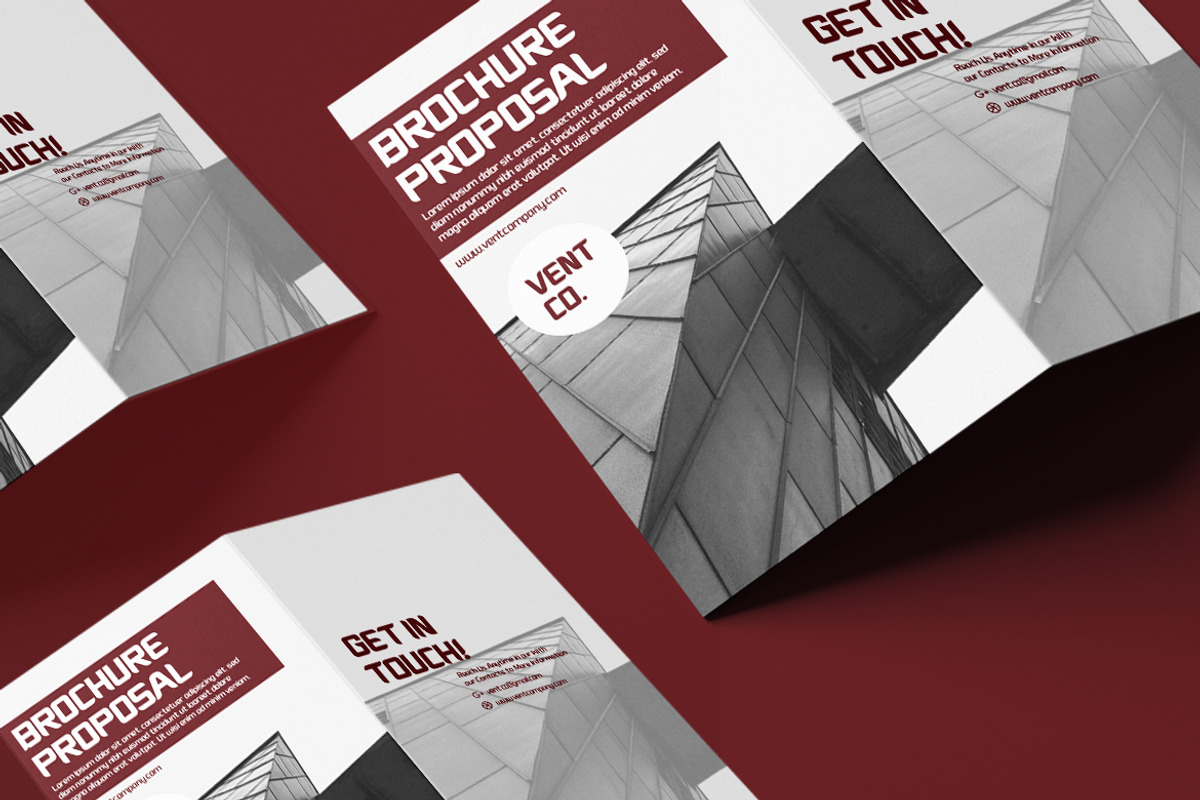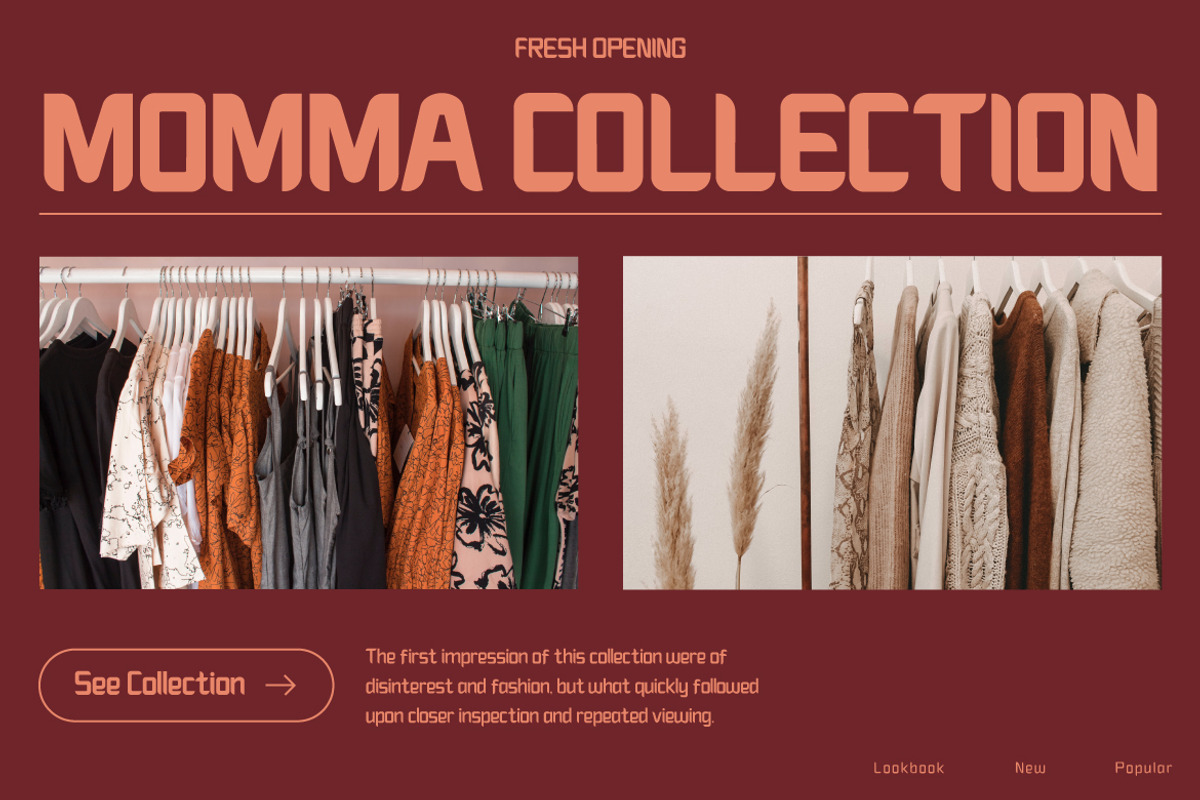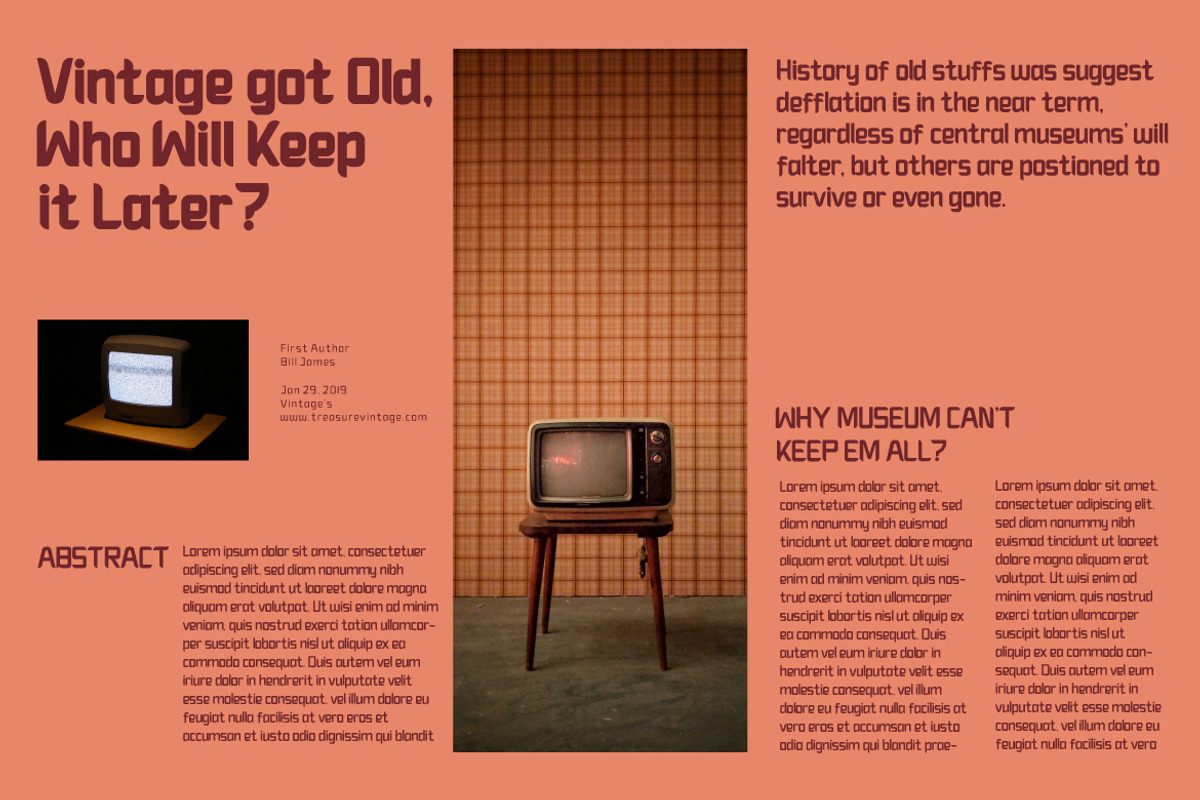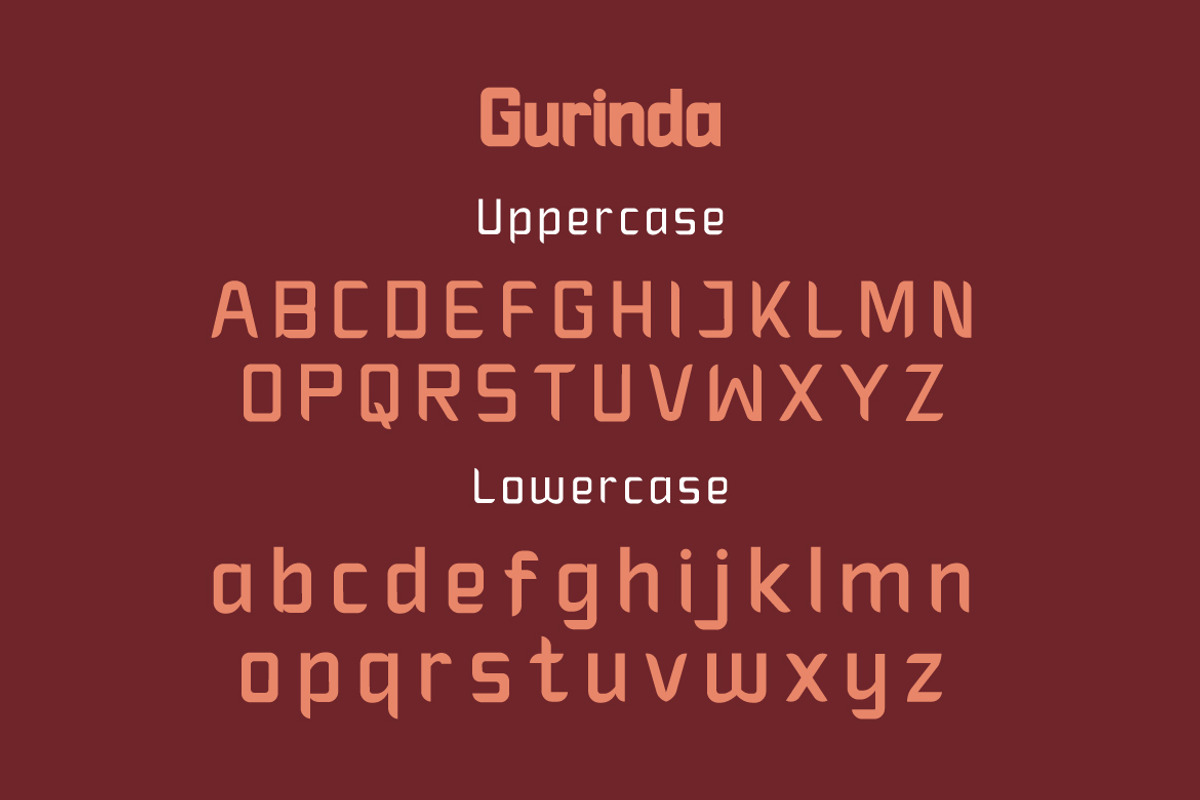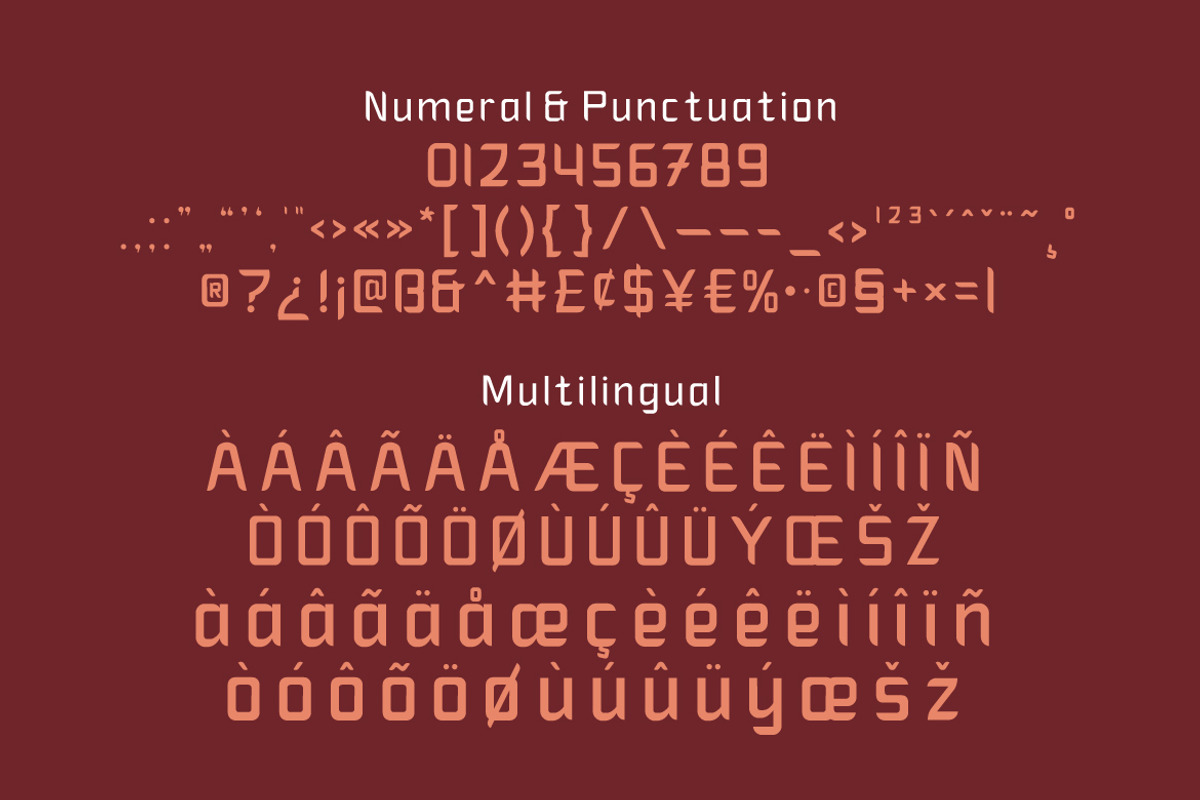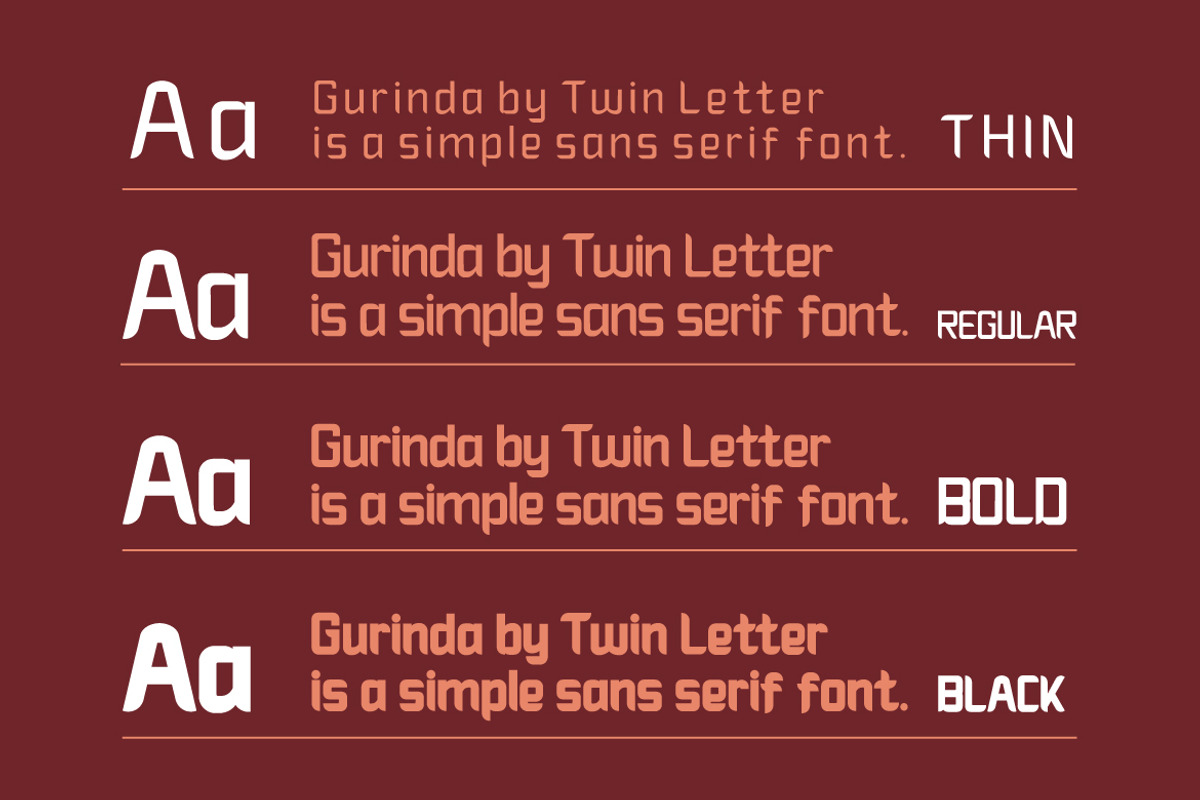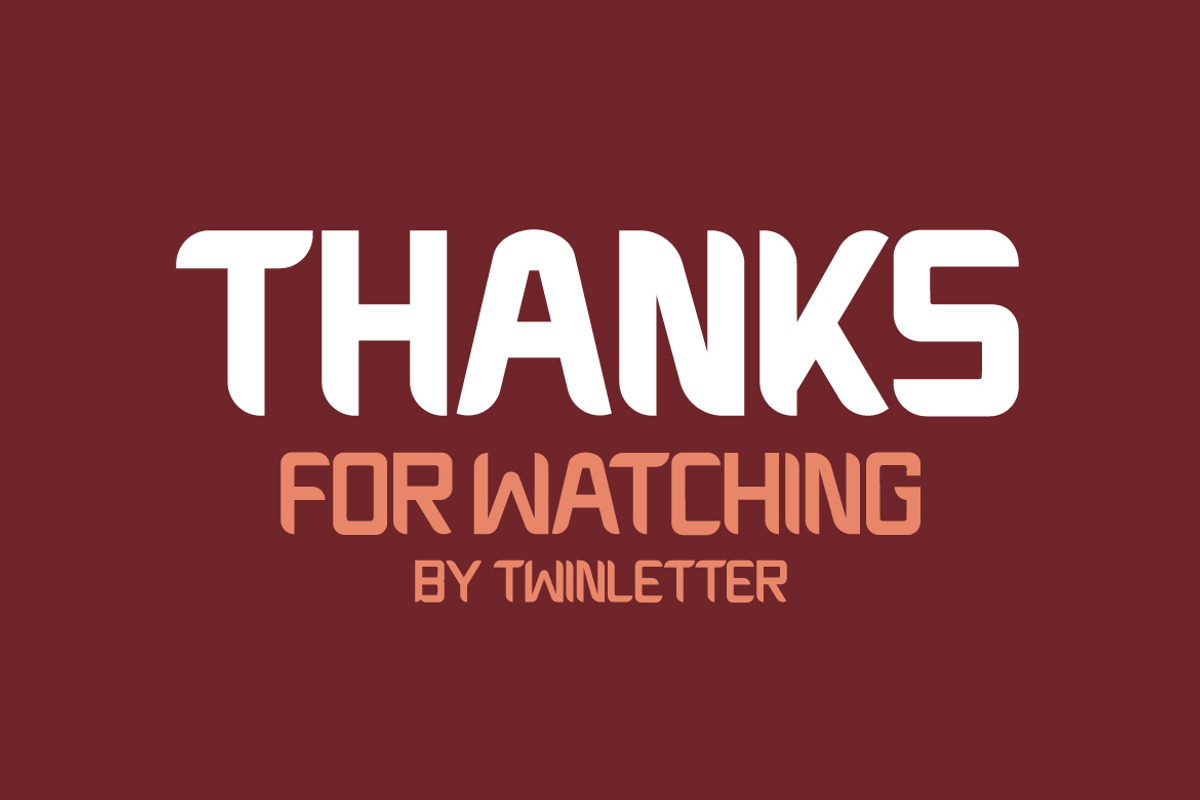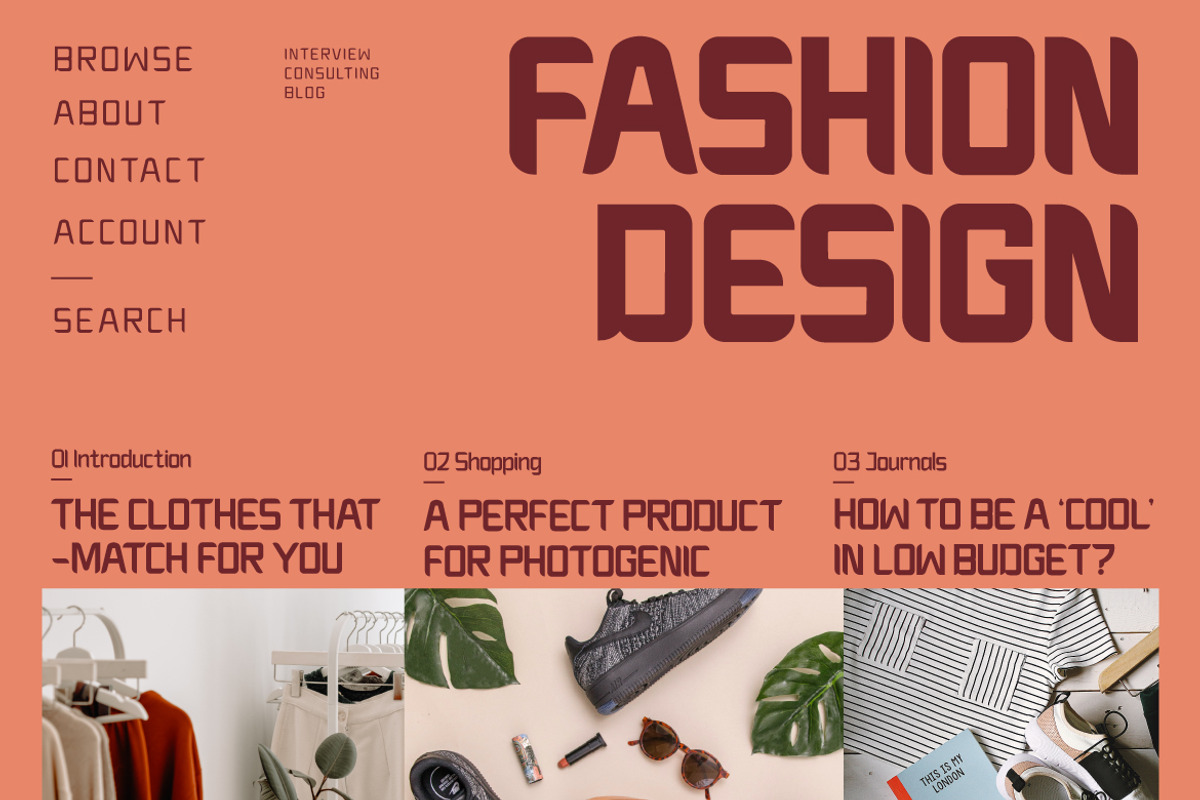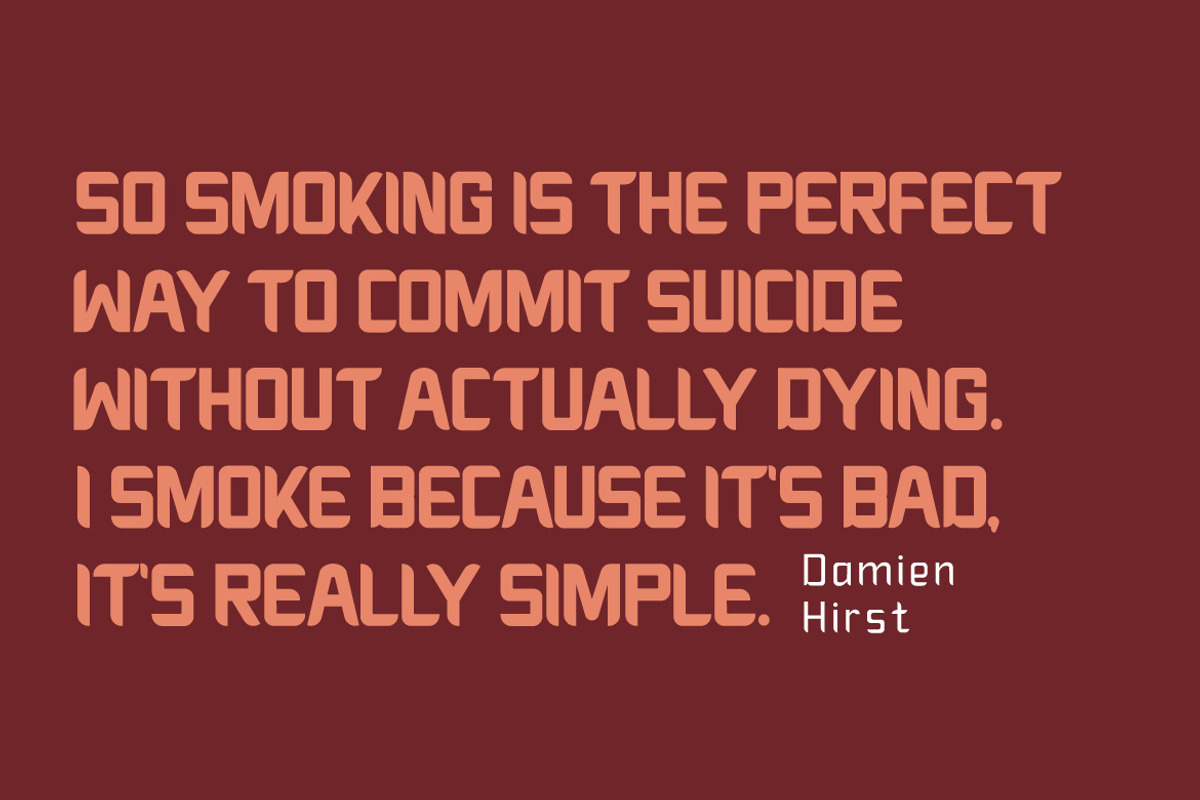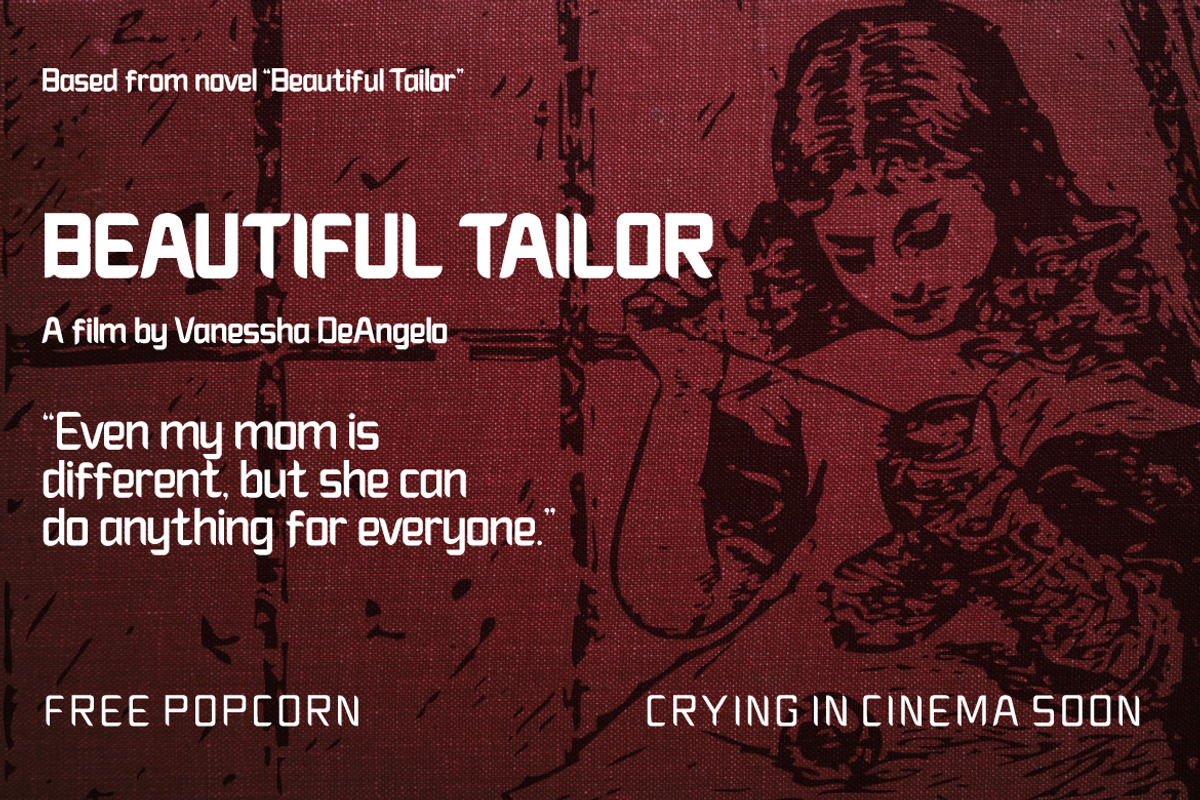
Gurinda
Gurinda sanserif font is our newest font project to go together with your unique and infinite creativity. Using this font as text is surely nice to the eye and read, and using it as a title will make your project seem enchanting and astound many people. Don’t be hesitant; all of your projects are unique, therefore make them unique with this typeface.
of course, your various design projects will be perfect and extraordinary if you use this font because this font is equipped with a font family, both for titles and subtitles and sentence text, start using our fonts for your extraordinary projects.